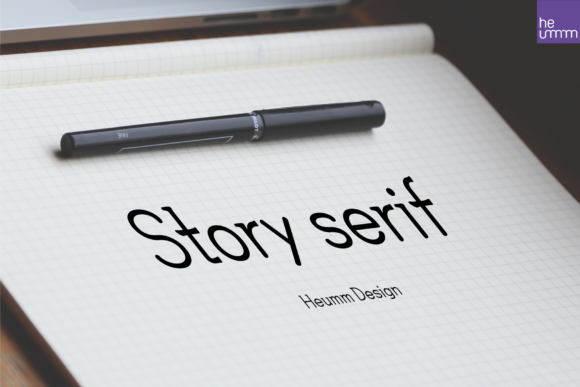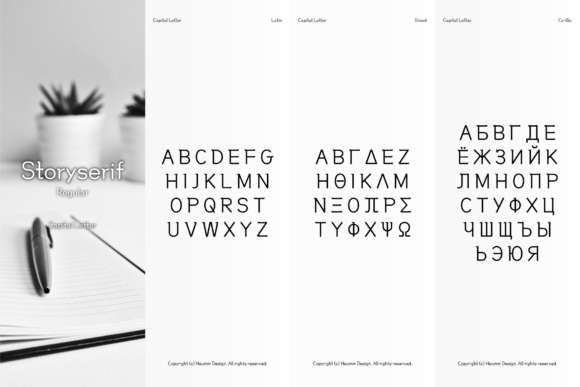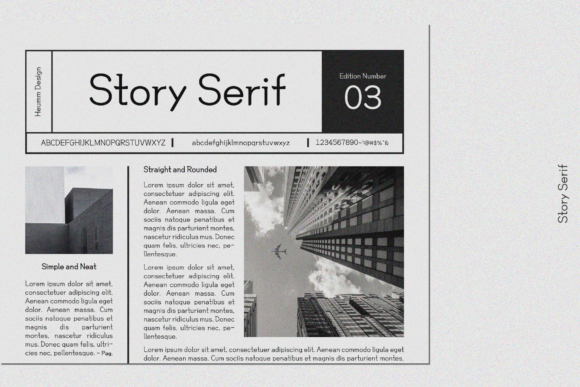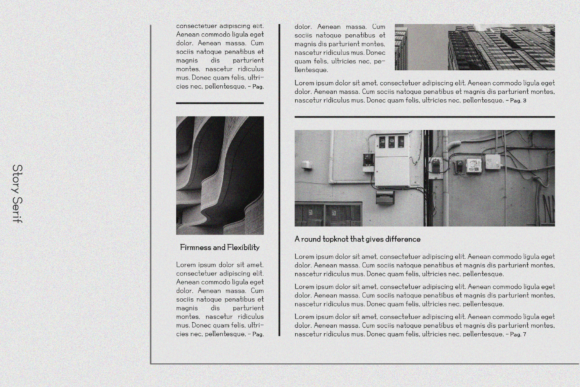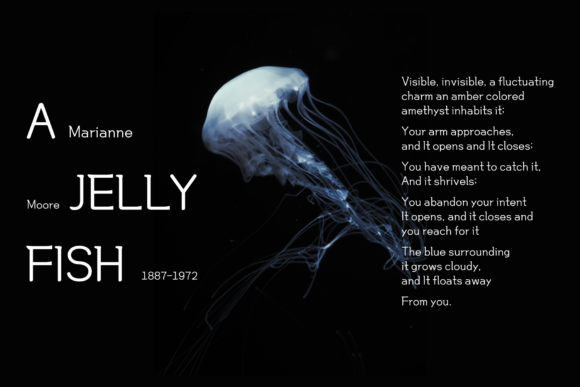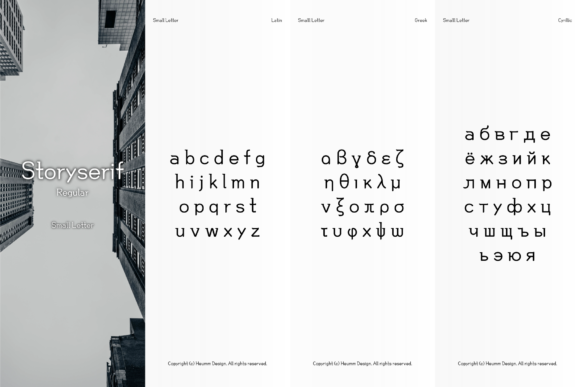
Story Serif Font
STORY SERIF FONT SPECIMEN
Story Serif is a textual font in the form of a slab serif and contains a concise and neat feeling through the round conclusion of straight lines and lines.
It is a typeface designed to contain a distinctive feeling by adding a more round topknot, not a typical square topknot of slab serif, and a gothic solidity through a straight line.